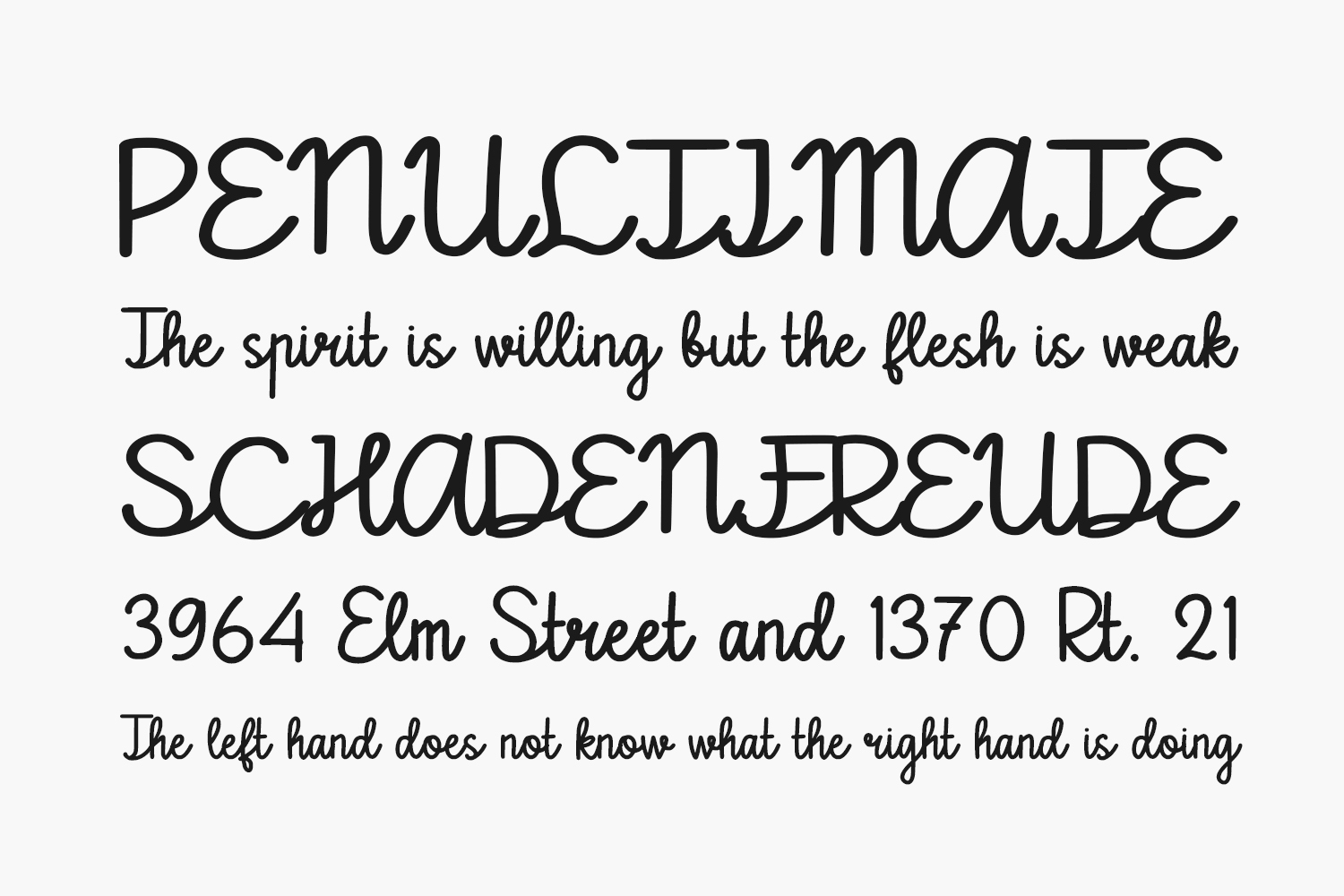
Creativo Free Font Family is a charming and delicate handwritten typeface that adds a touch of sweetness to your designs. With its gentle curves and whimsical letterforms, this font is perfect for creating heartfelt invitations, romantic quotes, feminine logos, and more. Let Creativo elevate your design projects with its charming, handcrafted aesthetic.
Designed by Abo Daniel Studio